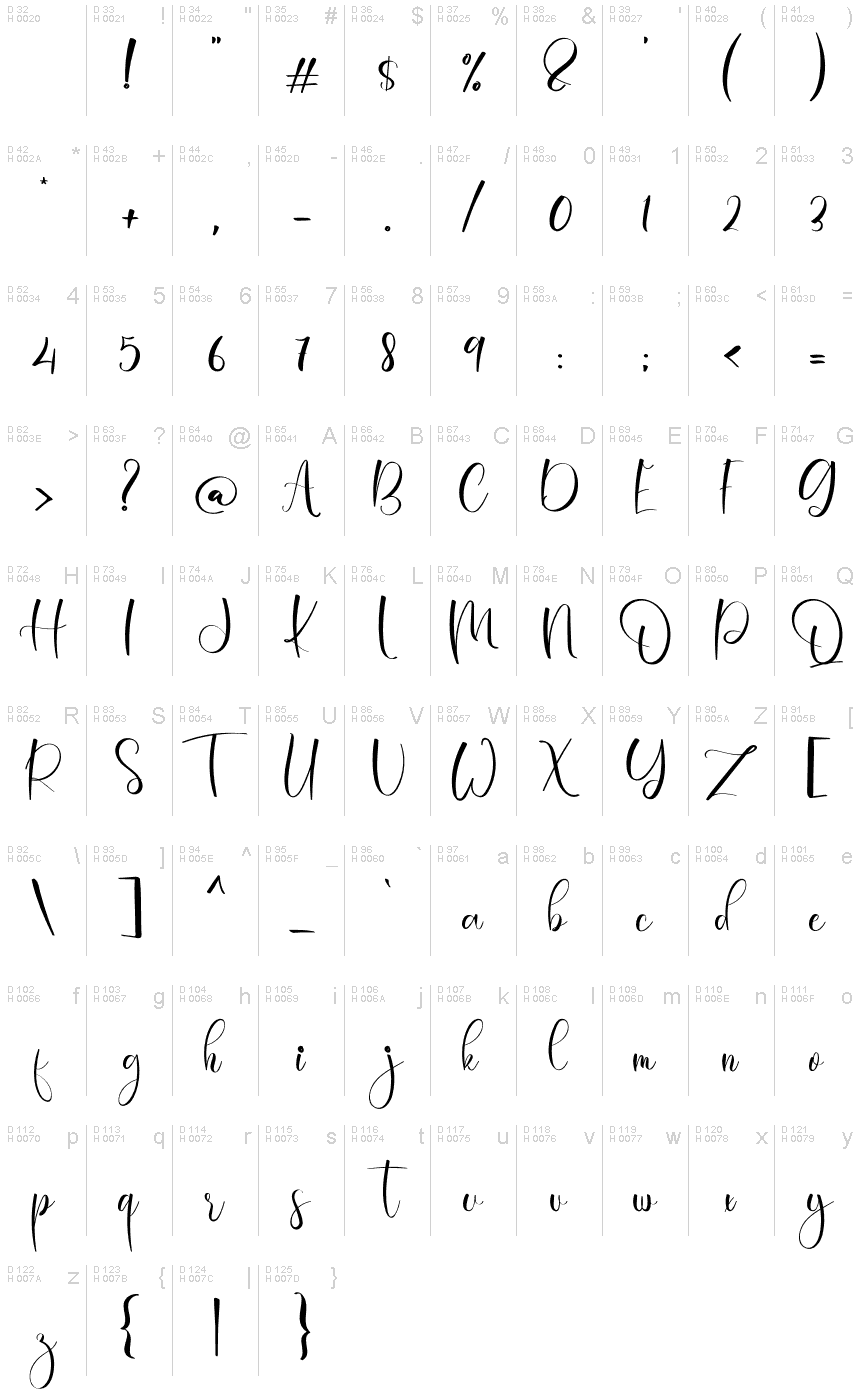
Happy Girl
Happy Girl is a charming calligraphy font designed by FreshtypeINK. The delicate and artistic strokes of this light-weight font bring a playful and feminine vibe to any project. Whether it’s an invitation, greeting card, or social media post, Happy Girl is perfect for adding a touch of whimsy to your design. This font typeface is also well-suited for branding projects that require a friendly and approachable feel, such as beauty blogs or children’s books. With Happy Girl, you can effortlessly convey joy and positivity in your designs while ensuring readability and search engine optimization.